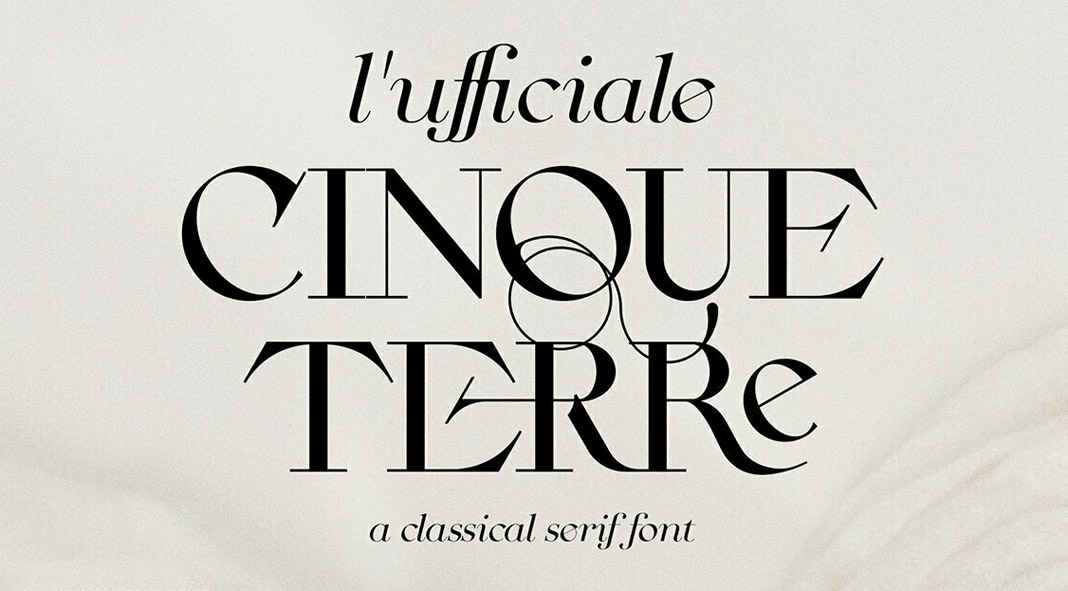
Cinque Terre, an elegant and quite unique classical serif typeface font.
SilverStag is a designer who usually creates original social media templates and unique fonts. Designed just recently in 2022, Cinque Terre is the designer’s first classical serif typeface. It is equipped with a true italic version and more than 75 stylish ligatures and alternates. The name comes from a marvelous coastal area within Liguria, in northwest Italy. This beautiful region was the main inspiration for the elegant typeface.